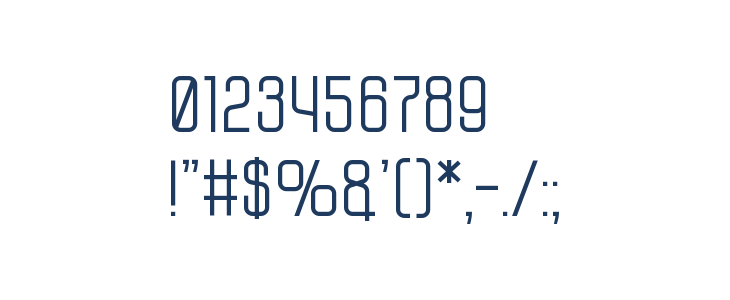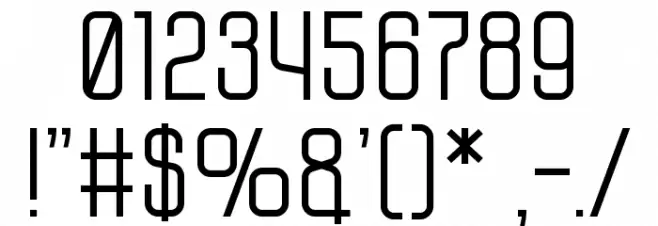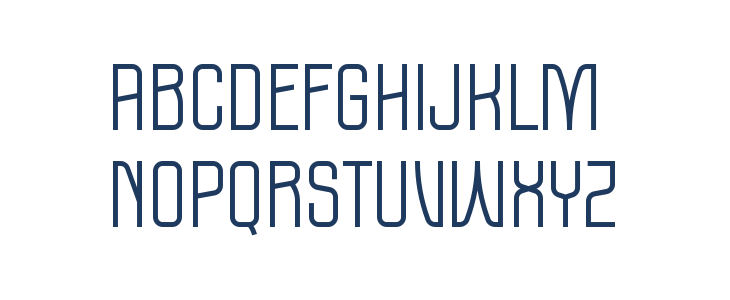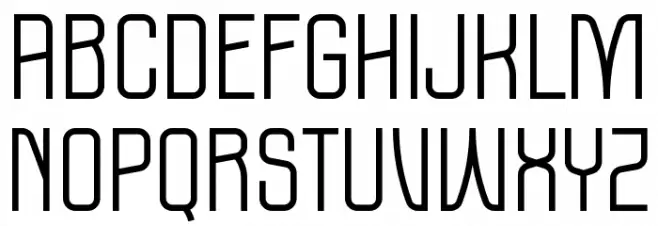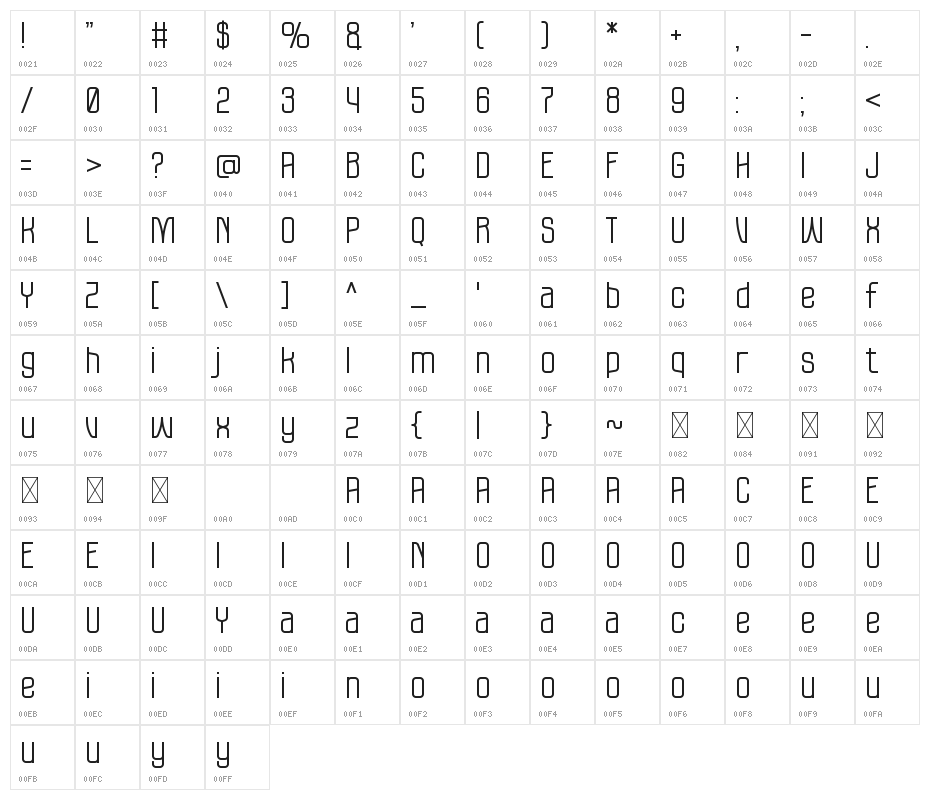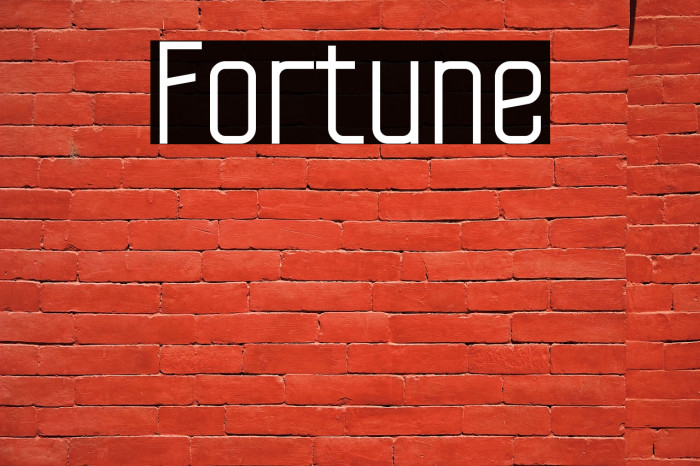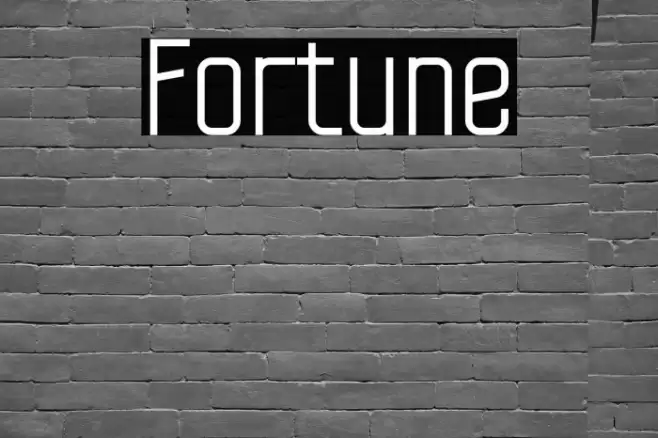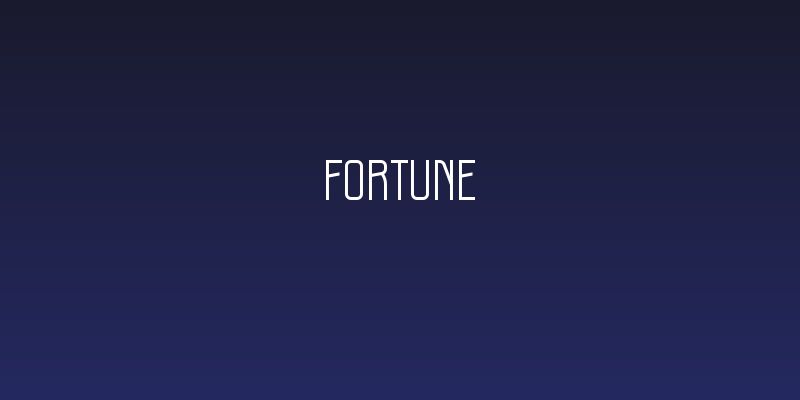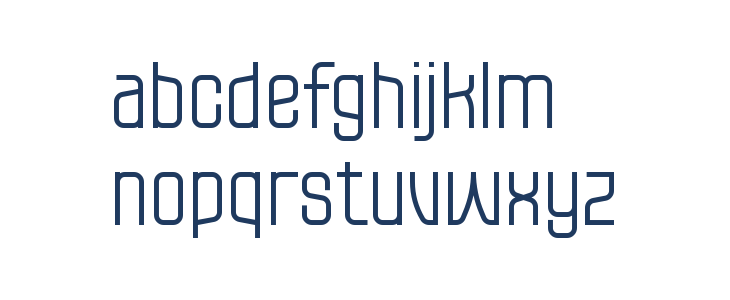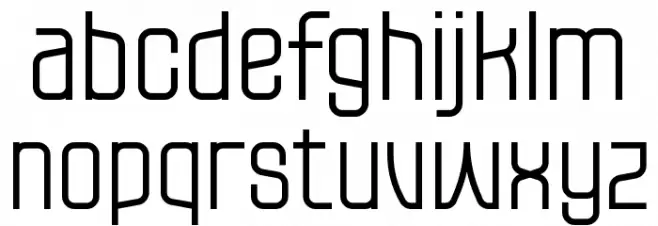
Fortune Font
Fortune Description
A modern, geometric sans-serif font with tall, narrow characters and clean lines.
| Width | Condensed |
| Overall Style | Modern, Futuristic |
| Use Case | Headlines, Logos, Digital interfaces |